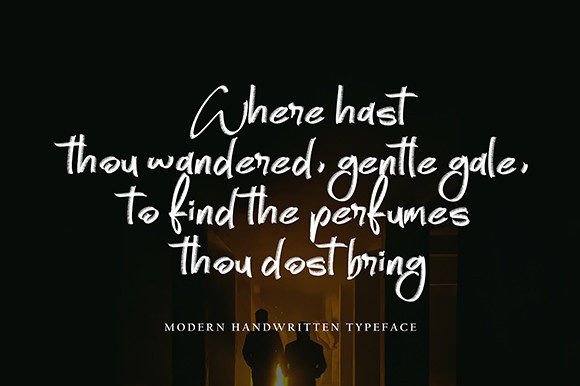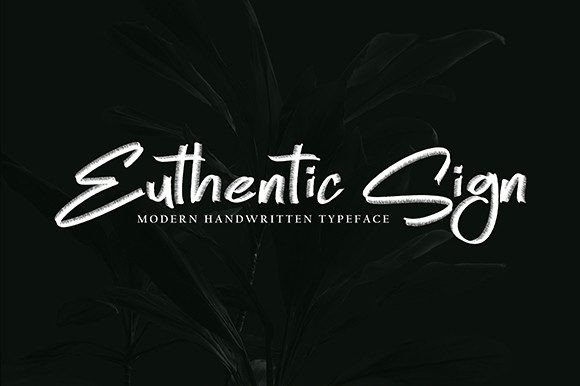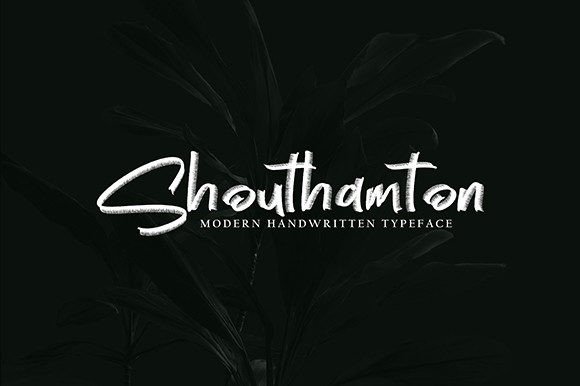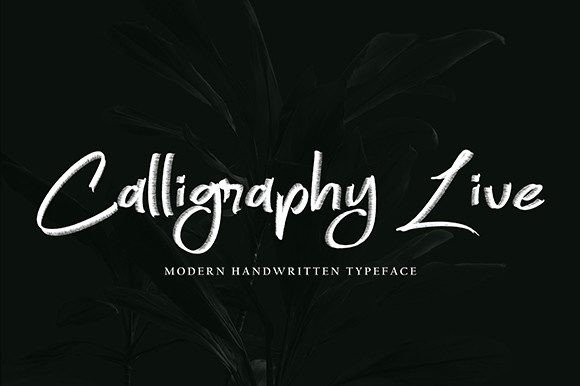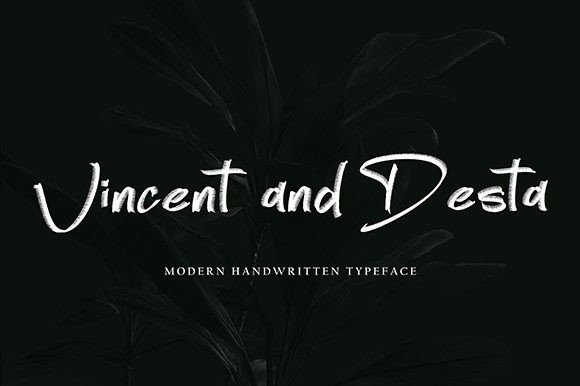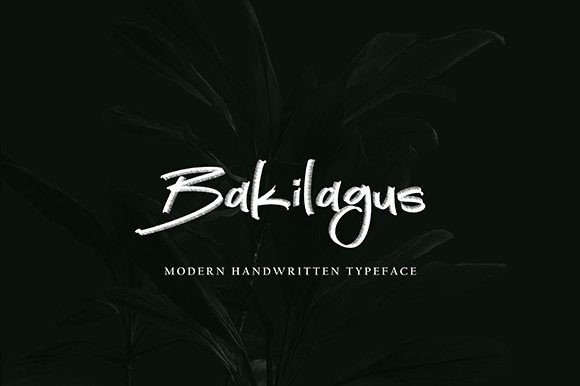
The Quest for the Perfect Font: Discovering Gigokutta
I still remember the time I was working on a wedding invitation project, and my client asked for a font that was elegant, yet modern and playful. I scoured the internet, tried countless fonts, but nothing seemed quite right. That was until I stumbled upon Gigokutta, a beautiful handwritten typeface that instantly captured the essence of what I was looking for.
A First Impression of Gigokutta
Gigokutta is a modern handwritten font that exudes elegance and sophistication. Its flowing lines and delicate curves make it perfect for a variety of design projects, from wedding invitations and greeting cards to logos, posters, labels, t-shirt designs, and business cards.
An Honest Review of Gigokutta
- ✨ Elegant and sophisticated design
- 🎨 Versatile and suitable for a wide range of design projects
- 💻 Great for both digital and print designs
While Gigokutta is an excellent font, there are a few things to keep in mind:
- 🤔 Limited availability of stylistic alternates, which may limit its use in certain designs
- ⚠️ May not be suitable for very large or very small text sizes due to its delicate design
The Backstory of Gigokutta
Gigokutta was designed by a team of typographers who wanted to create a modern, handwritten font that was both elegant and approachable. Inspired by the flowing lines of traditional calligraphy, Gigokutta is a font that is both refined and relatable.
| Author | Pineungtype & Missinklab |
Q: What is Gigokutta?
A: Gigokutta is a modern handwritten typeface designed for use in a variety of design projects, from wedding invitations and greeting cards to logos and business cards.
Q: Is Gigokutta suitable for digital designs?
A: Yes, Gigokutta is a versatile font that is suitable for both digital and print designs, including websites, social media graphics, and email marketing campaigns.